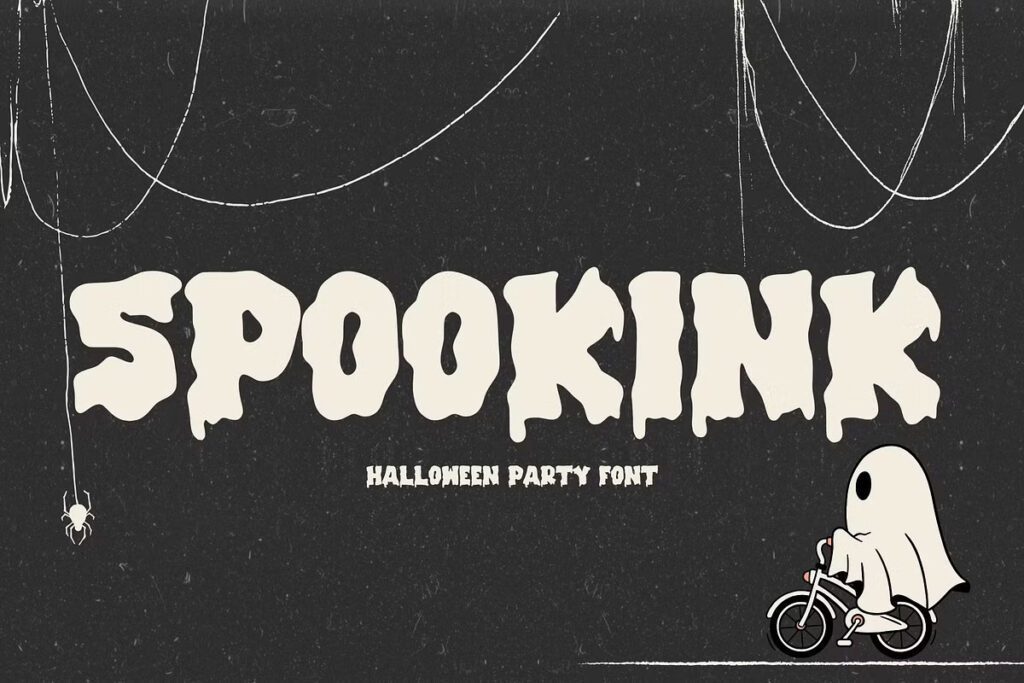
SpookInk: The Ultimate Dripping Halloween Font for Spooky DesignsSpookInk
Get ready to elevate your Halloween designs with SpookInk, the ultimate dripping Halloween font that oozes spooky vibes! Designed to mimic the eerie look of dripping ink or blood, this handcrafted font is perfect for creating a chilling atmosphere in your Halloween-themed projects. Whether you’re working on party invitations, posters, social media graphics, or eerie decorations, SpookInk brings that horror-movie aesthetic to life.
Why Choose SpookInk for Your Halloween Projects?
Dripping Horror Vibe: SpookInk’s bold and creepy design is inspired by classic horror movie fonts, making it ideal for all your spooky needs. The irregular dripping effect on each character adds a truly sinister feel, perfect for creating a ghostly, unsettling mood in any design.
Versatile Usage: Whether you’re crafting party invitations, flyers, or merchandise, SpookInk is versatile enough for a wide range of Halloween projects. It’s also great for haunted house decorations, spooky branding, and even horror novel covers.
High Readability: Despite its eerie dripping style, SpookInk maintains excellent readability, making it suitable for both headlines and short pieces of text. You can create captivating designs without sacrificing clarity.
Key Features of SpookInk Halloween Font
Handcrafted Design: Every letter is carefully designed to mimic dripping ink, giving it a haunted, horror-inspired look that sets the perfect Halloween tone.
Uppercase & Lowercase Characters: SpookInk comes with a full set of uppercase and lowercase letters, offering complete flexibility for different design styles.
Symbols & Numbers: The font includes numerals and punctuation marks, ensuring it can be used across a variety of design needs.
Multilingual Support: With support for multiple languages, SpookInk can reach a global audience, making it perfect for Halloween campaigns in different regions.
PUA Encoding & Stylistic Set: Unlock special features easily with PUA encoding, giving you full control over stylistic alternates to make your designs stand out even more.
SpookInk Variations
SpookInk offers two font variations to give you even more flexibility in your designs:
SpookInk Regular: The classic version with bold, dripping letters that bring the horror vibe to life.
SpookInk Outline: A lighter, outlined version of the font for when you need a subtler but equally creepy effect.
Perfect for Your Halloween Designs
SpookInk is your go-to font for anything that needs a frightening touch—whether it’s Halloween party invitations, eerie posters, or social media graphics. This font delivers the spooky vibe needed to capture attention and set the right tone for the scariest season of the year.
If you’re ready to give your Halloween designs a chilling twist, SpookInk is the font for you. With its handcrafted, horror-inspired aesthetic, it’s the perfect way to add a spooky vibe to any project.